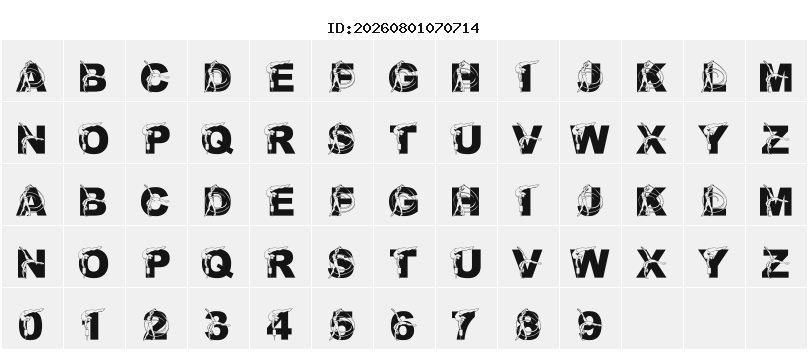
• Font Name: LMS Rhythmic Writing
About LMS Rhythmic Writing.ttf
LMS Rhythmic Writing.ttf is a modern, elegant sans-serif font designed for ultimate readability and visual harmony. Perfect for branding, headlines, web design, and print materials.